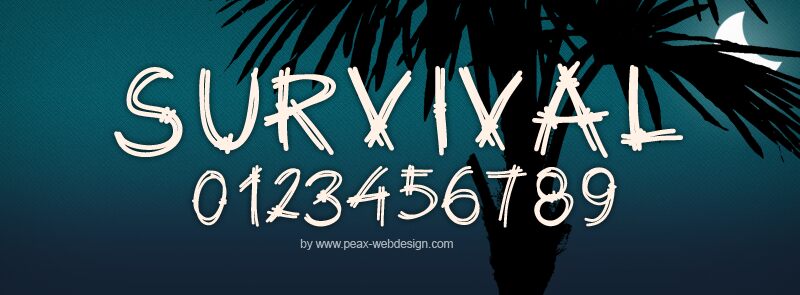
PW Survival by Peax Webdesign is a free trash-style handwritten font with tall, wiry capitals and a restless homemade edge. Repeated strokes, crossed joins, and uneven lines make the lettering look hastily marked with a blunt pen.
Independent music and streetwear audiences are the clearest match for its raw, unpolished manner. It suits gig posters, album artwork, T-shirt graphics, and skate branding with an underground slant. The scratchy overlaps can also become part of distressed illustrations or hand-drawn logo artwork.